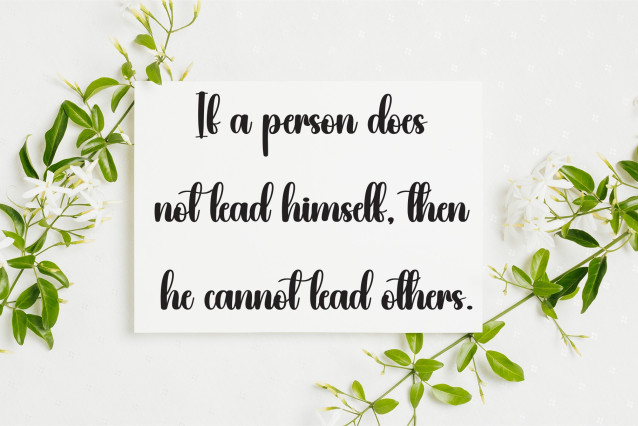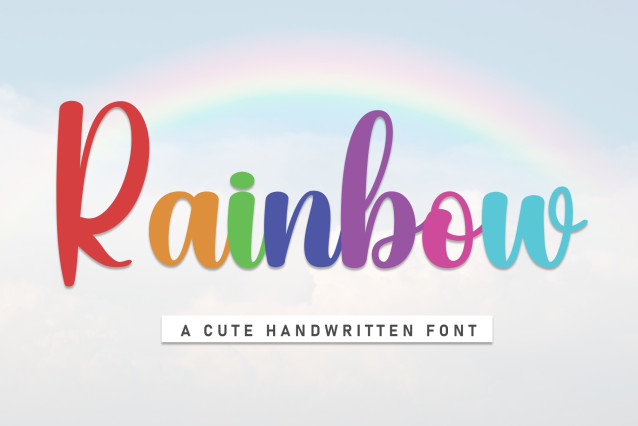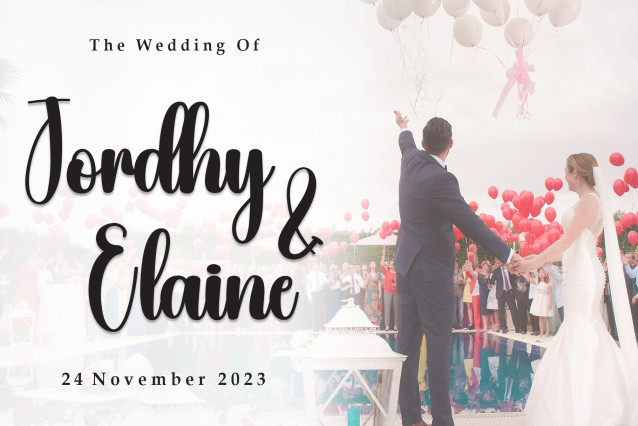
Rainbow Style Script Font
Rainbow Style Script Font is a trendy handwritten font with a contemporary atmosphere and impeccable form, inspired by timeless classic calligraphy. It will add elegance and class to any of your design projects.